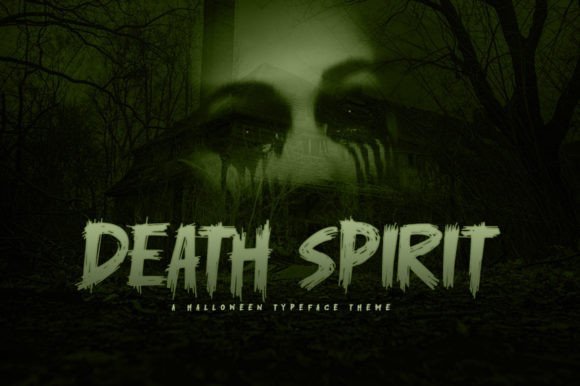
The Perfect Font for a Spooky Night
It’s that time of the year again when designers start brainstorming creative ideas for Halloween projects. As the moon casts an eerie glow over the night sky, your imagination runs wild with possibilities. You envision a logo that sends shivers down people’s spines, a greeting card that makes them jump in fright, or a poster that screams ‘trick or treat’ in bold letters.
Enter the Death Spirit Font, a display horror font designed specifically for designers like you. This font is perfect for creating a haunting atmosphere that will leave your audience spellbound. With its unique design, it can easily be matched to a horror and Halloween set of projects, making it a valuable addition to your creative arsenal. Whether you’re a seasoned designer or a newcomer to the world of typography, the Death Spirit Font is sure to make your designs stand out.
Key Features of Death Spirit Font
- Font Style: A gothic, horror-inspired sans-serif font with unique, hand-crafted characters.
- Unique Characteristics: Distinctive, hand-drawn style with a dark, eerie atmosphere, making it ideal for horror-themed projects.
Death Spirit Font Review
Overall, I think the Death Spirit Font has some great features that could make it a great choice for certain projects. ✨
- Unique and edgy aesthetic that’s perfect for horror-themed projects or anything with a dark, gothic vibe.
- High-quality font that’s highly customizable and scalable.
- Supports a wide range of languages, making it a versatile choice for international projects.
However, there are some limitations that might make it less suitable for other projects. ⚠️
- May not be the best choice for projects that require a lot of subtlety or nuance, as the font can come across as a bit over-the-top.
- Lack of a clear, defined style guide or design documentation can make it difficult to use consistently across different platforms.
- Some users may find the font’s bold, dramatic feel to be a bit too gimmicky or attention-seeking.
Overall, I think the Death Spirit Font is a solid choice for projects that need a bold, attention-grabbing font. However, it may not be the best fit for projects that require a more understated or refined aesthetic.
Use the Death Spirit Font to add a touch of darkness and mystery to your designs.
Pair it with bold, gothic-inspired graphics for a haunting effect.
Experiment with different font sizes and styles to create a sense of drama and tension.
Use the Death Spirit Font for:
Horror movie posters and promotional materials.
Dark fantasy and gothic-inspired art.
Mysterious and suspenseful book covers.
Alternatives to Death Spirit Font
Retro Arcade Font
The Retro Arcade Font is a pixelated font that resembles the classic video games of the 80s and 90s. It’s perfect for designing retro-themed games, websites, or graphics. Compared to Death Spirit Font, Retro Arcade Font has a more nostalgic and playful feel, while Death Spirit Font has a darker and edgier tone.
Pixelated Horror Font
The Pixelated Horror Font is a distressed font that adds a spooky and eerie effect to any design. It’s ideal for horror-themed projects, such as video games, movies, or websites. Unlike Death Spirit Font, Pixelated Horror Font has a more eerie and unsettling atmosphere, while Death Spirit Font has a darker and more mysterious tone.
Dark Gothic Font
The Dark Gothic Font is a serif font that features intricate details and ornaments. It’s suitable for designing dark fantasy-themed projects, such as novels, comics, or video games. Compared to Death Spirit Font, Dark Gothic Font has a more elegant and refined feel, while Death Spirit Font has a more rugged and edgy tone.
Distressed Cyber Font
The Distressed Cyber Font is a font that mimics the look of old computer screens and monitors. It’s perfect for designing cyberpunk-themed projects, such as science fiction novels, movies, or video games. Unlike Death Spirit Font, Distressed Cyber Font has a more futuristic and high-tech feel, while Death Spirit Font has a darker and more mysterious tone.